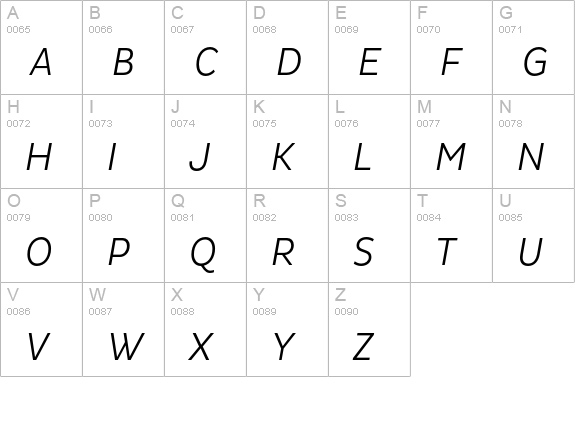
Pluto Sans Cond Light Italic Font Details
Pluto Sans Cond Light Italic is a refined, elegant, condensed-width, italic variant in the Pluto typeface family \xE2\x80\x94 well suited to elegant body text, refined sub-headings, and luxury branding.
Introducing Pluto Sans Cond Light Italic font - a modern and elegant typeface designed for those seeking a sleek and sophisticated look in their designs. The light italic style adds a touch of flair and creativity to your projects, perfect for conveying a sense of modernity and refinement. What sets Pluto Sans Cond Light Italic font apart is its versatility and readability, making it suitable for a wide range of design applications including branding, editorial design, and web design. The delicate curves and subtle slant of the italicized characters create a harmonious balance that is both eye-catching and easy on the eyes. Best of all, Pluto Sans Cond Light Italic font is available for free download at FontsMarket.com, allowing you to easily access this stylish typeface for your personal and commercial projects without any cost. Enhance your designs with the timeless elegance of Pluto Sans Cond Light Italic font today!